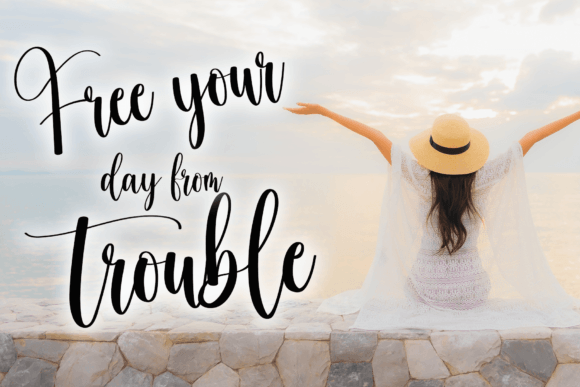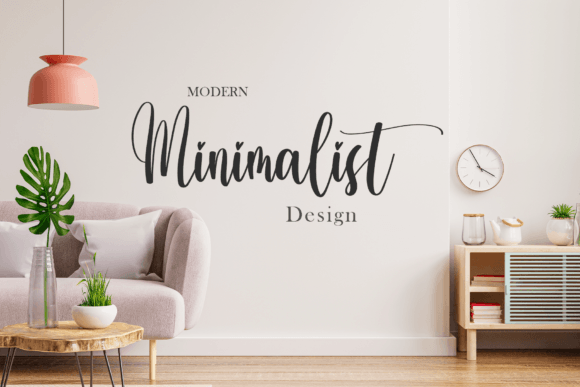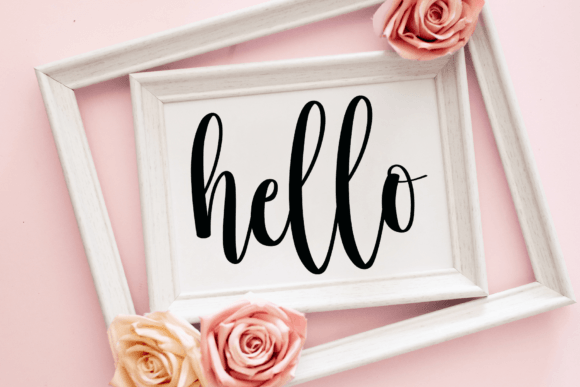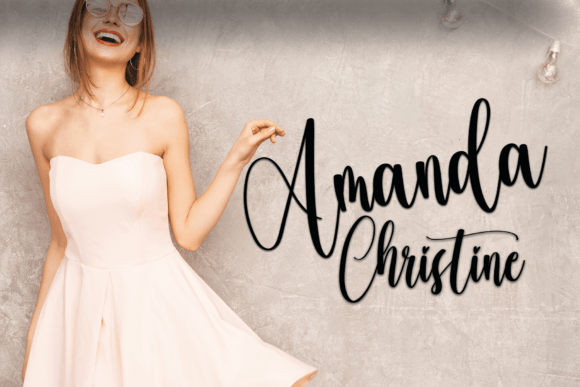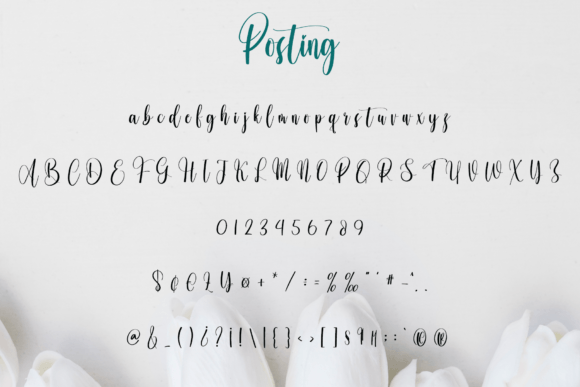
About Posting Font
Posting is a fresh and beautiful handwritten font, good for your design purposes such as Youtube banners, Cover Logo Mockups, Wedding Invitations, Id Cards, Flayer, Crafts. By using this font, your business will progress and develop. Apart from that, this font is simple and unique.